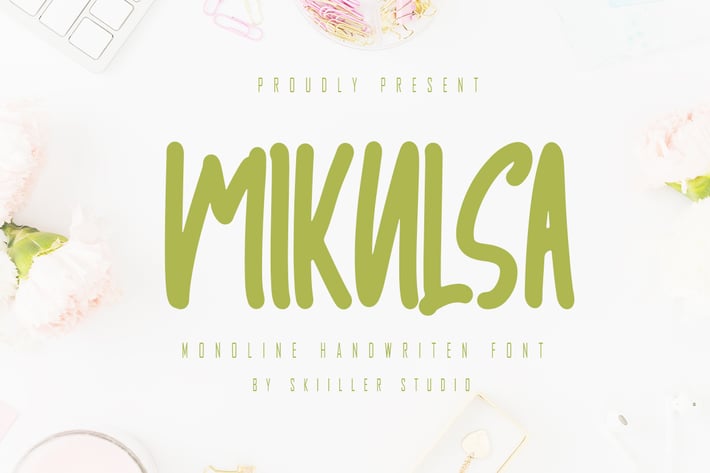
Mikulsa - Monoline Handwritten Font
Mikulsa is a modern paint brushed handwritten font, crafted to give your headlines and logotype projects a stylish touch. This font reads as strong, confident, and dynamic and can add tons of urban character to your designs.
+ Basic Latin Language Support (AÀÁÂÃÄÅCÇDÐEÈÉÊËIÌÍÎÏÑOØÒÓÔÕÖUÙÜÚÛWYÝŸÆß )